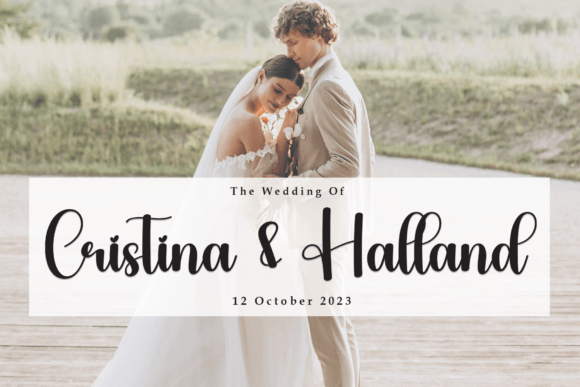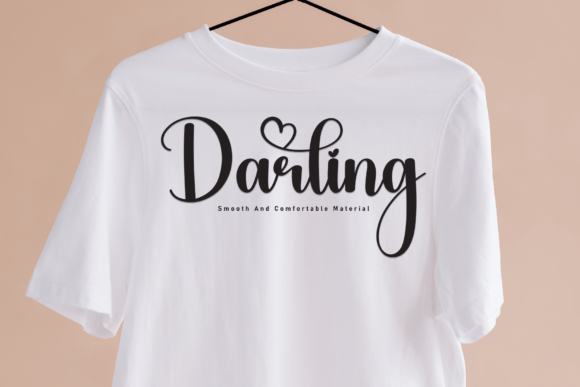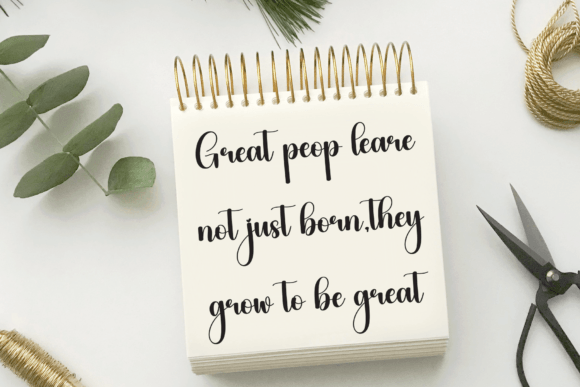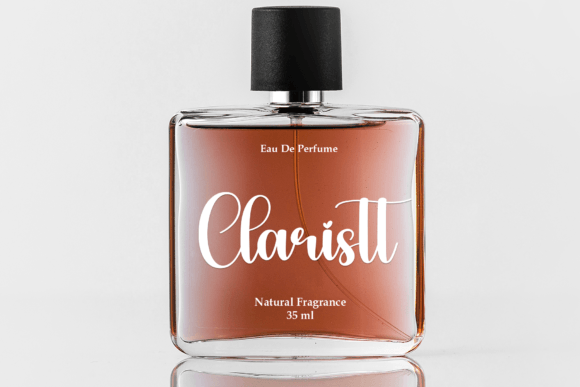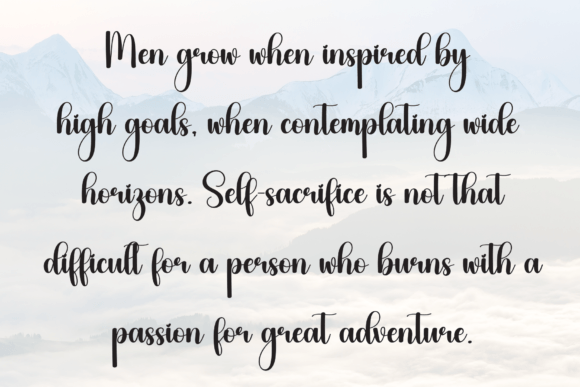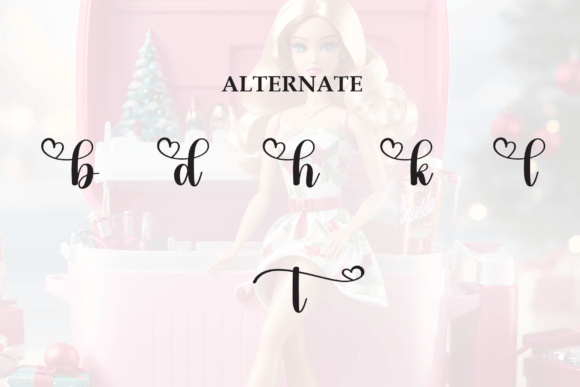
The Magic of Barbie Christmas Font
It’s that time of the year again – the season of giving, sharing, and spreading love. As designers, we’re always on the lookout for that special something to make our creations stand out. Whether it’s a holiday card, a gift tag, or a festive poster, the right font can make all the difference. And that’s where the enchanting Barbie Christmas Font comes in – a sweet and friendly handwritten font that’s sure to capture the essence of the holiday season.
With its natural and unique style, the Barbie Christmas Font is the perfect addition to any design project. Its versatility makes it incredibly fitting to a wide range of designs, from children’s party invitations to elegant holiday menus. As a designer, you’ll appreciate the flexibility and creativity that this font brings to your work, allowing you to bring your imagination to life and create truly special pieces.
Barbie Christmas Font Key Features
- Unique Characteristics: The Barbie Christmas Font features a playful, cursive design with a festive holiday theme, complete with ornaments and other decorations.
- Font Style: The font is a script style, adding a touch of elegance and sophistication to any design.
- Character Count: The font includes a wide range of characters, including uppercase and lowercase letters, numbers, and punctuation marks, as well as holiday-themed symbols and ornaments.
Barbie Christmas Font Review
Overall, the Barbie Christmas Font is a delightful addition to any holiday-themed project. ✨ The font’s playful and festive design effectively captures the spirit of Christmas, making it perfect for advertisements, social media, and other promotional materials.
Some of the font’s notable strengths include:
- ✨ High-quality vector graphics that ensure crisp and clear rendering at various sizes.
- ✨ A wide range of customizable options, including colors, sizes, and styles, to suit different design requirements.
- ⚠️ Limited ligature support, which may affect text rendering in certain situations.
- ⚠️ Some users may find the font’s design too childish or clichéd, which could impact its suitability for more formal or professional projects.
Overall, the Barbie Christmas Font is a fun and engaging font that’s perfect for lighthearted, holiday-themed projects. While it may not be the best choice for every design scenario, it’s a great option for those looking to add a touch of festive flair to their work.
The Barbie Christmas Font is perfect for creating festive and playful designs, such as:
- Christmas cards and invitations
- Holiday social media graphics
- Decorative typography for packaging and branding
Remember to pair the font with complementary colors and graphics to create a cohesive and eye-catching design.